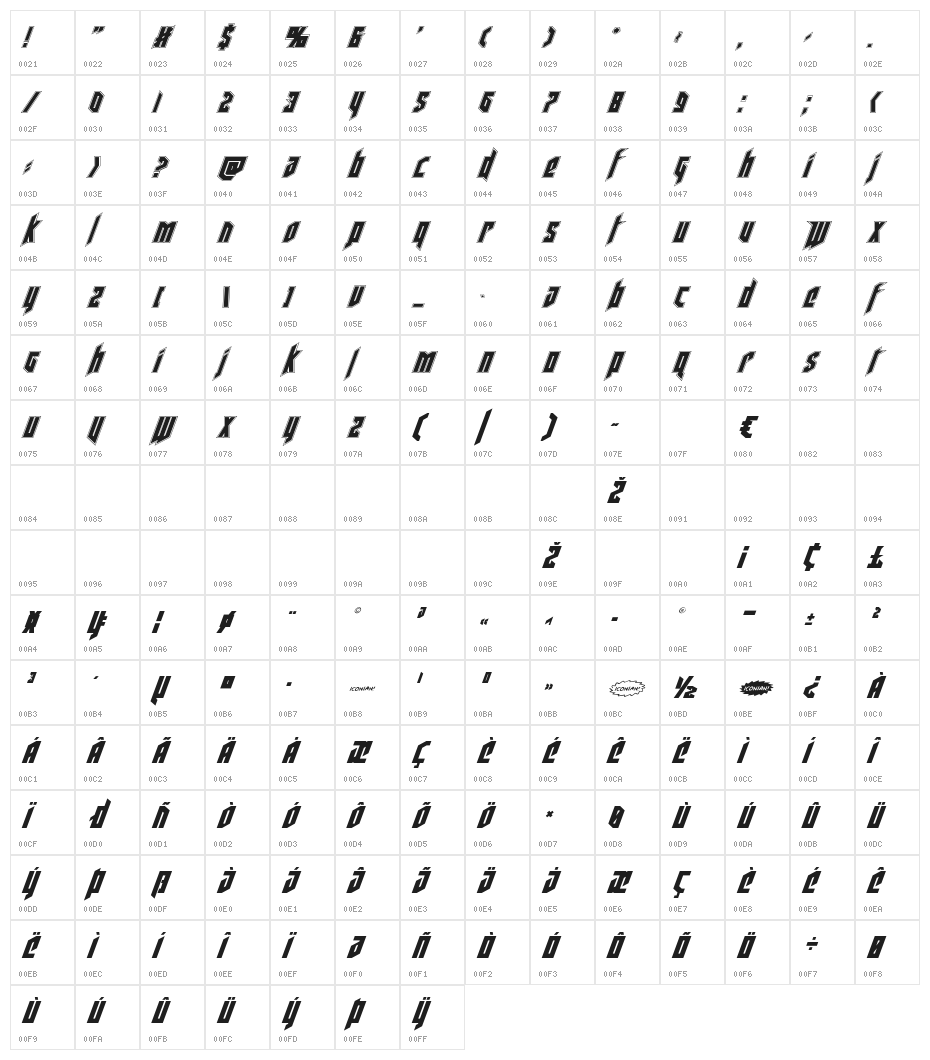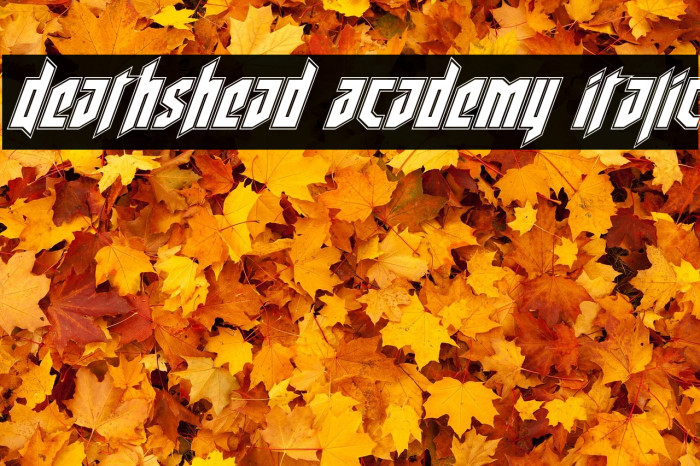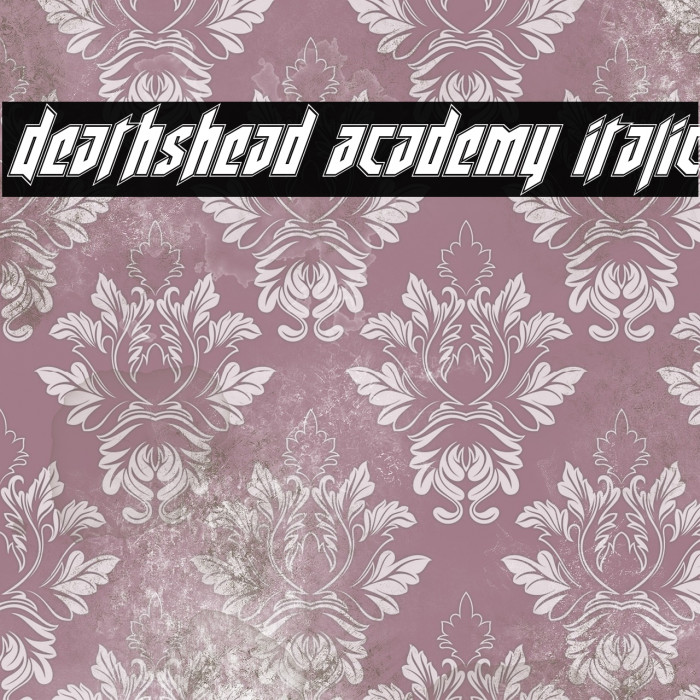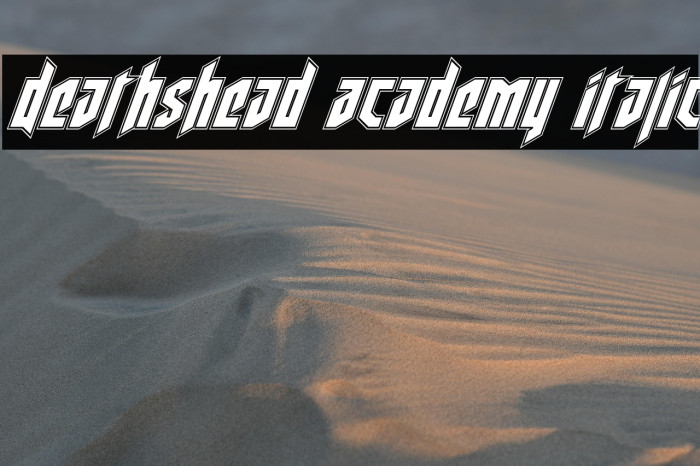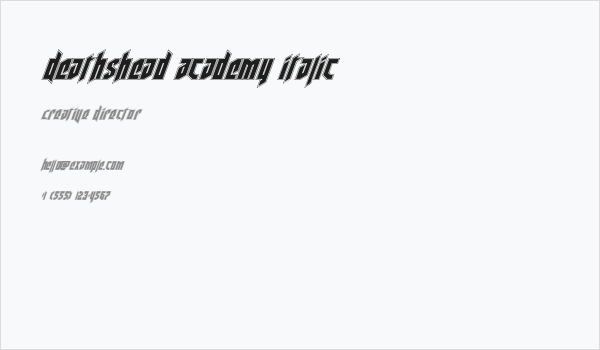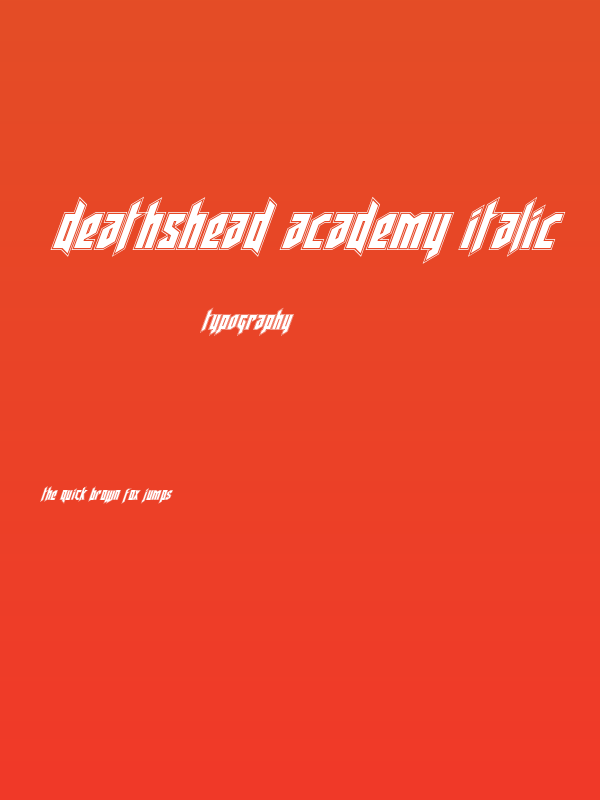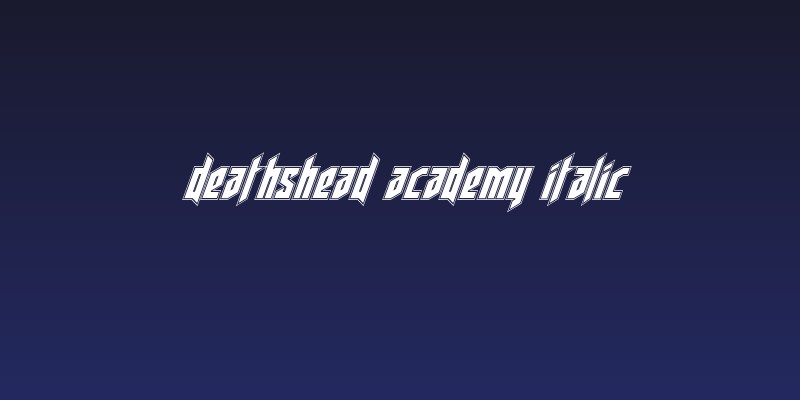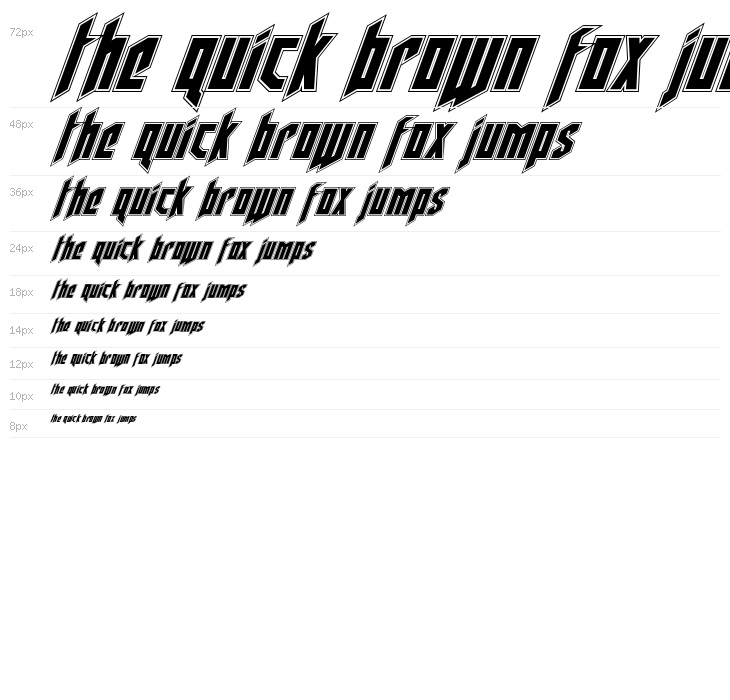
Deathshead Academy Italic Font
Deathshead Academy Italic Description
This font features a bold, angular design with a strong, dynamic presence. The characters are sharply edged and italicized, giving a sense of motion and intensity. The uppercase and lowercase letters maintain a consistent style, with exaggerated serifs and a slightly condensed form. The numbers and special characters follow the same aesthetic, ensuring uniformity across all glyphs. This font's unique style is reminiscent of futuristic or sci-fi themes, making it ideal for projects that require a bold statement.
| Overall Style | Futuristic, Dynamic |
| Proposed Projects | Ideal for sci-fi themed posters, video game titles, and edgy branding projects. |